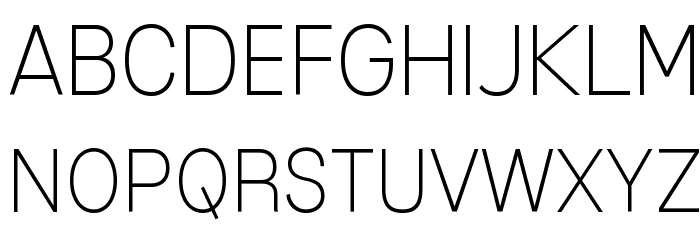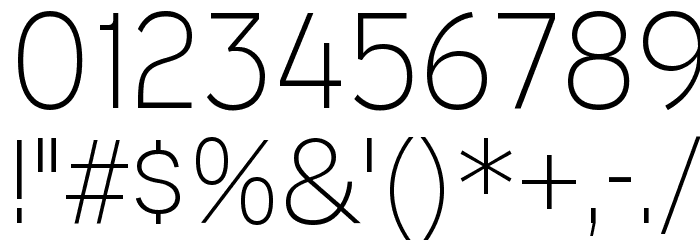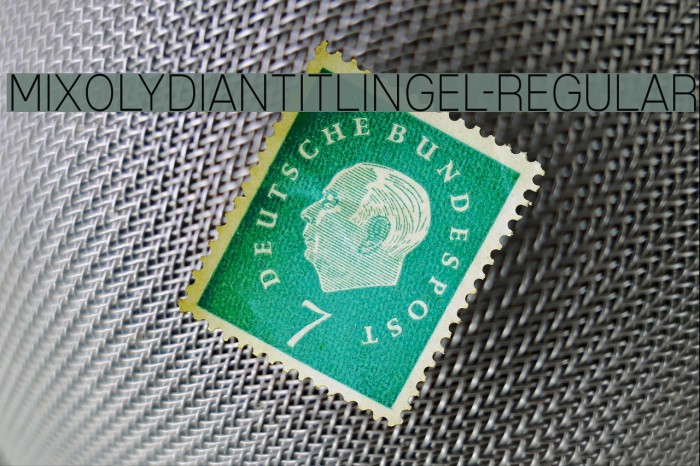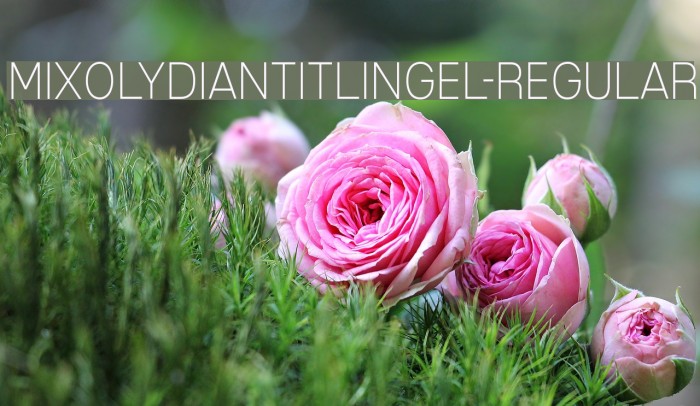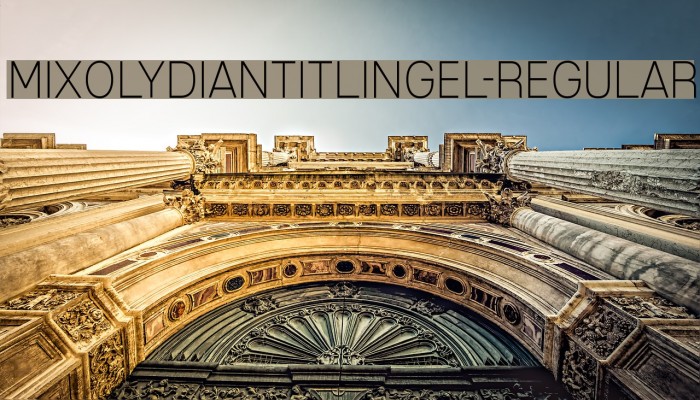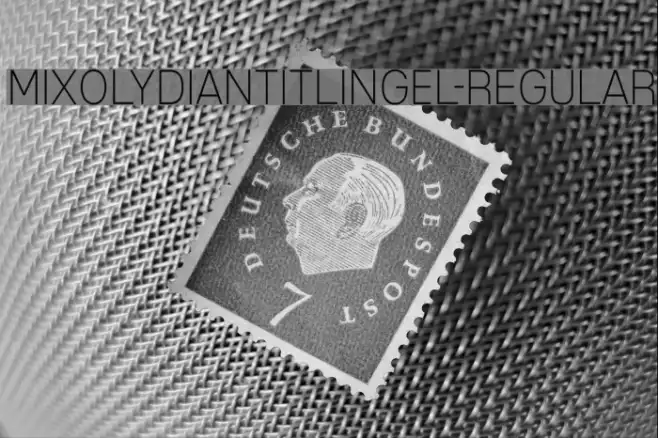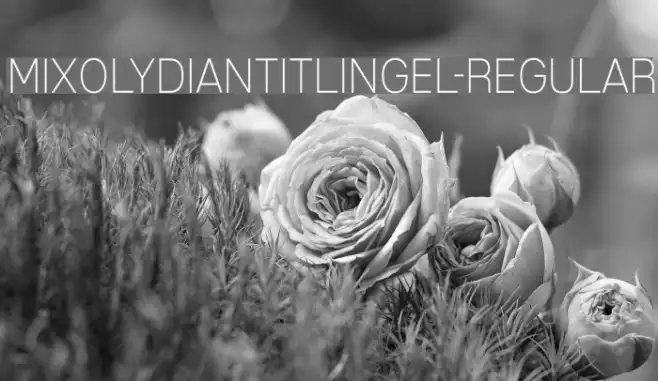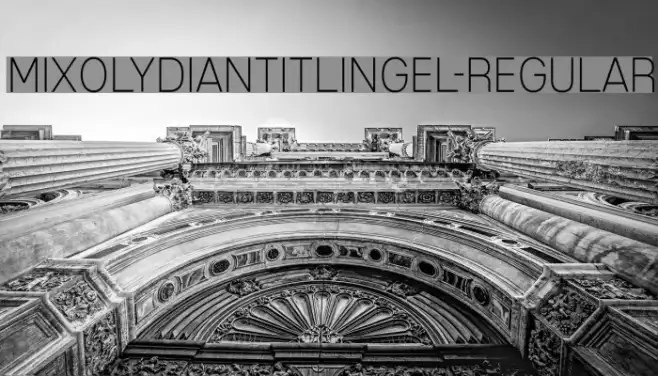
MixolydianTitlingEl-Regular Font
This font features a clean and modern sans-serif design with a geometric structure. The characters are uniform in width, providing a balanced and harmonious appearance. The uppercase and lowercase letters maintain a consistent height, contributing to its sleek and professional look. The numerals are clear and easy to read, making them suitable for various applications. Special characters are well-defined, enhancing the font's versatility. Its simplicity and clarity make it ideal for digital and print media, where readability is crucial.
A modern, geometric sans-serif font with uniform character width and clear readability.
- Proposed Projects: Ideal for branding, editorial design, web design, and corporate identity projects.